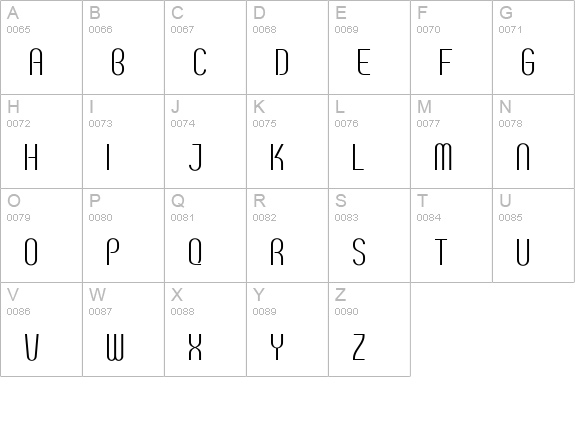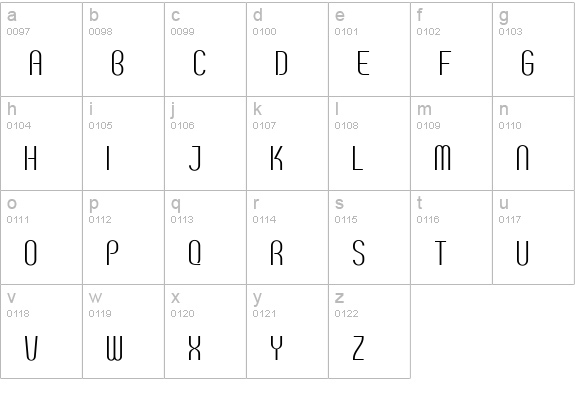
Breve SC font is a stunning display typeface that exudes elegance and sophistication. With its delicate and refined letterforms, this font is perfect for adding a touch of class to any design project. The slender and graceful strokes of each letter create a harmonious balance, making Breve SC font truly captivating. This font is not only visually captivating but also versatile, making it suitable for a wide range of design applications. Whether you're working on a logo, branding materials, invitations, or editorial design, Breve SC font will elevate your project to new heights. One of the most appealing aspects of Breve SC font is that it is freely available to download at FontsMarket.com. This means that you can add this stunning font to your collection without any cost. The accessibility of this font ensures that designers of all levels can enjoy its beauty and incorporate it into their work. Breve SC font's free availability does not compromise its quality. It is meticulously designed with attention to detail, ensuring that each character is flawless and visually striking. The font's legibility is also exceptional, making it easy to read even at small sizes. In terms of style, Breve SC font has a timeless and classic appeal. Its clean and contemporary aesthetic makes it suitable for both modern and traditional design projects. The font's versatility is further enhanced by its compatibility with various design software and platforms. Whether you're a professional designer or a hobbyist, Breve SC font is a must-have in your font arsenal. Its elegant and refined appearance, combined with its free availability, makes it a valuable addition to any designer's toolkit. So why wait? Head over to FontsMarket.com and download Breve SC font today to add a touch of sophistication to your next design project.